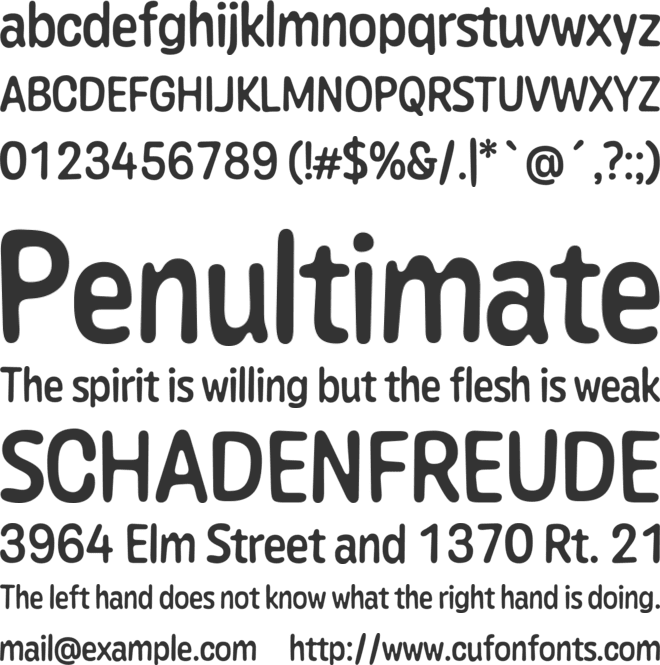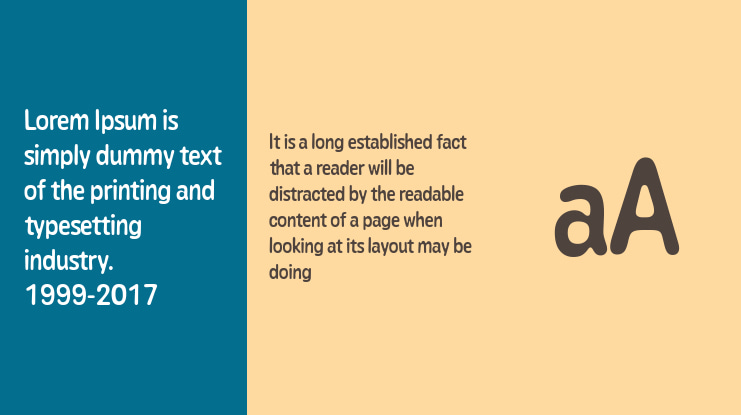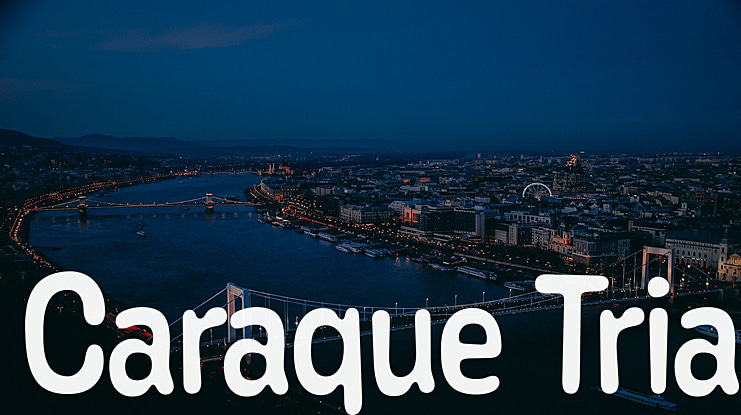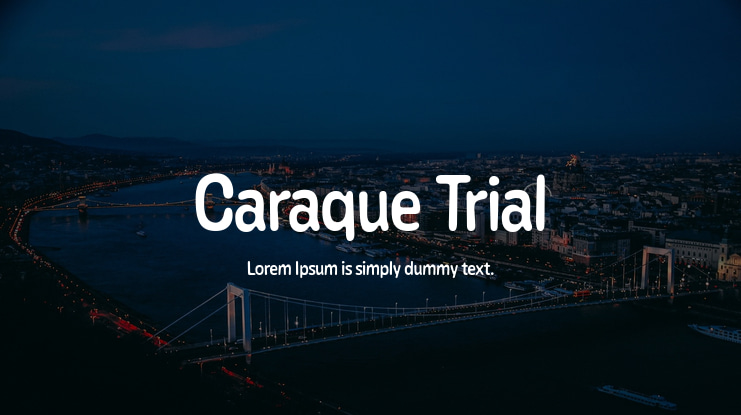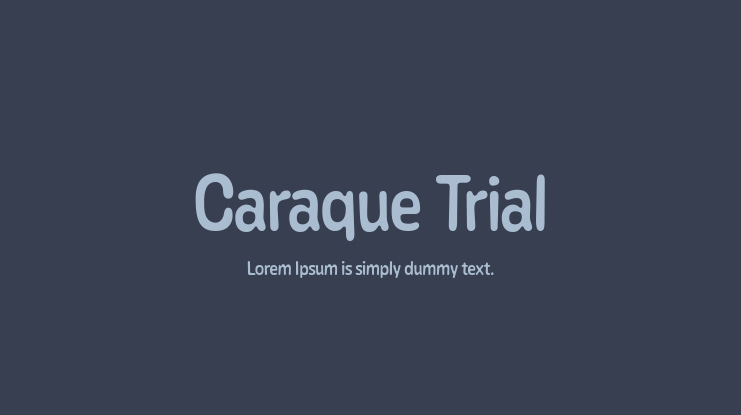
Caraque Trial Font Family
This is an unique western handwritten sans serif font from designer daltonmaag. It oozes personality and will give life to any brief. We can see this typeface coming to life across an array of formats, from packaging and billboards, to posters and logos. Caraque would equally feel at home when used on a plane, an ice-cream van, a cereal box, a can of soft-drink, or in the opening credits of a movie. With a friendly and rounded character, Caraque is also perfect for use in digital content for children.
Caraque Trial font has variable features, including the following styles: Regular, Medium, Bold, ExtraBold, Black.